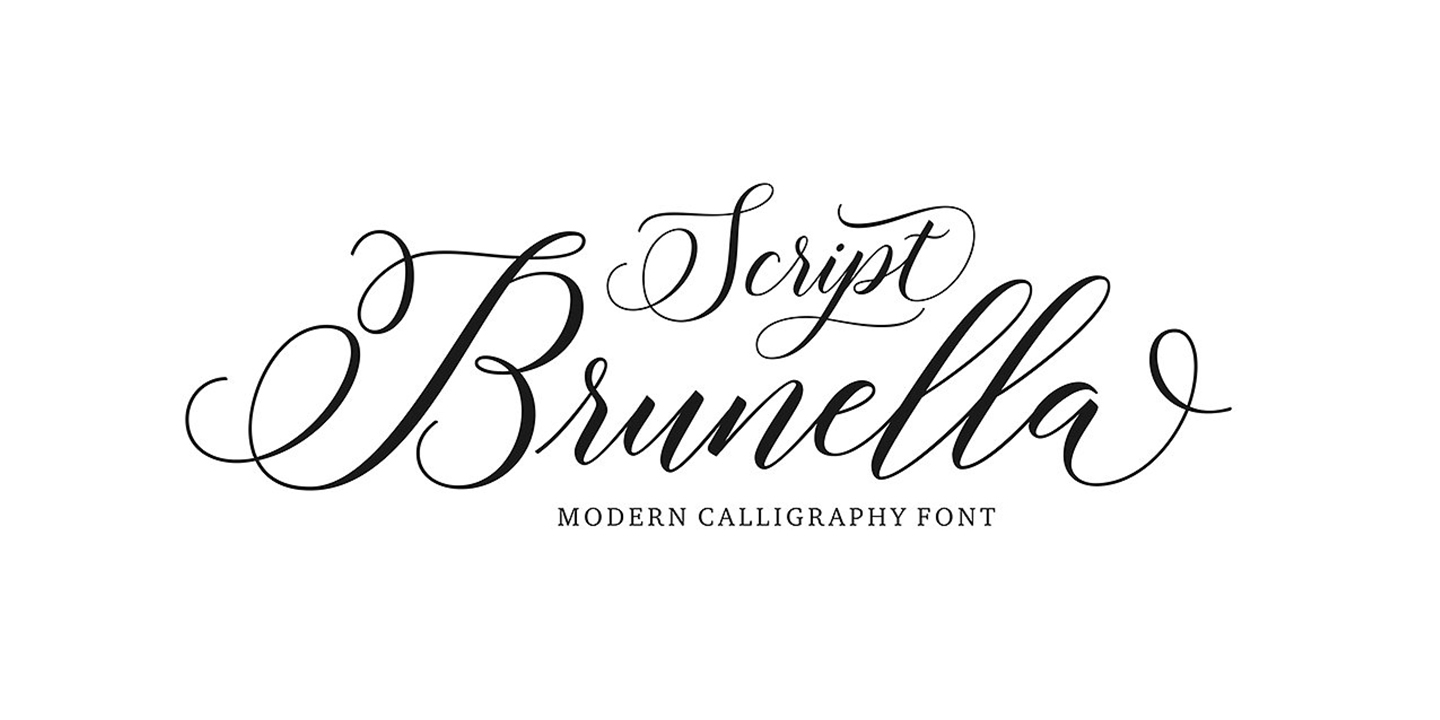
Brunella Script Font is a stunning and elegant handwritten typeface that is perfect for adding a personal and sophisticated touch to your design projects. With its flowing, connected letters and beautiful calligraphic details, it's an excellent choice for a wide range of applications, including wedding invitations, sophisticated branding, logo design, social media graphics, greeting cards, and product packaging. This font excels at creating a sense of luxury, craftsmanship, and bespoke artistry. The Brunella Script Font Free Download is a perfect way to experience its unique charm for your personal projects.
What makes Brunella Script Font so exciting is its authentic and graceful personality. Unlike many other script fonts, Brunella has a natural and fluid feel that makes it look genuinely handcrafted. The connections between the letters are smooth and seamless, creating a continuous and harmonious flow that is both beautiful and highly readable. The subtle variations in stroke thickness add to its realistic charm, giving it a sophisticated and high-end feel. It’s a versatile font that can convey a wide range of emotions, from romantic and heartfelt to elegant and exclusive, making it a powerful tool for visual storytelling.
The Brunella Script Font family is designed to offer maximum versatility and creative freedom. In addition to the main script font, it often includes a set of ligatures and alternative characters that allow you to customize the look of your text and create a truly unique design. These stylistic alternates help you avoid repetitive letterforms and add an extra layer of artistry to your work, making your designs look custom-made and professional. The font's consistent style ensures that your designs remain cohesive and polished, no matter how you arrange the characters.
This font is more than just a typeface; it’s an asset for designers who want to create designs that feel personal, artistic, and memorable. Its elegant and romantic vibe makes it a valuable addition to any designer's collection.